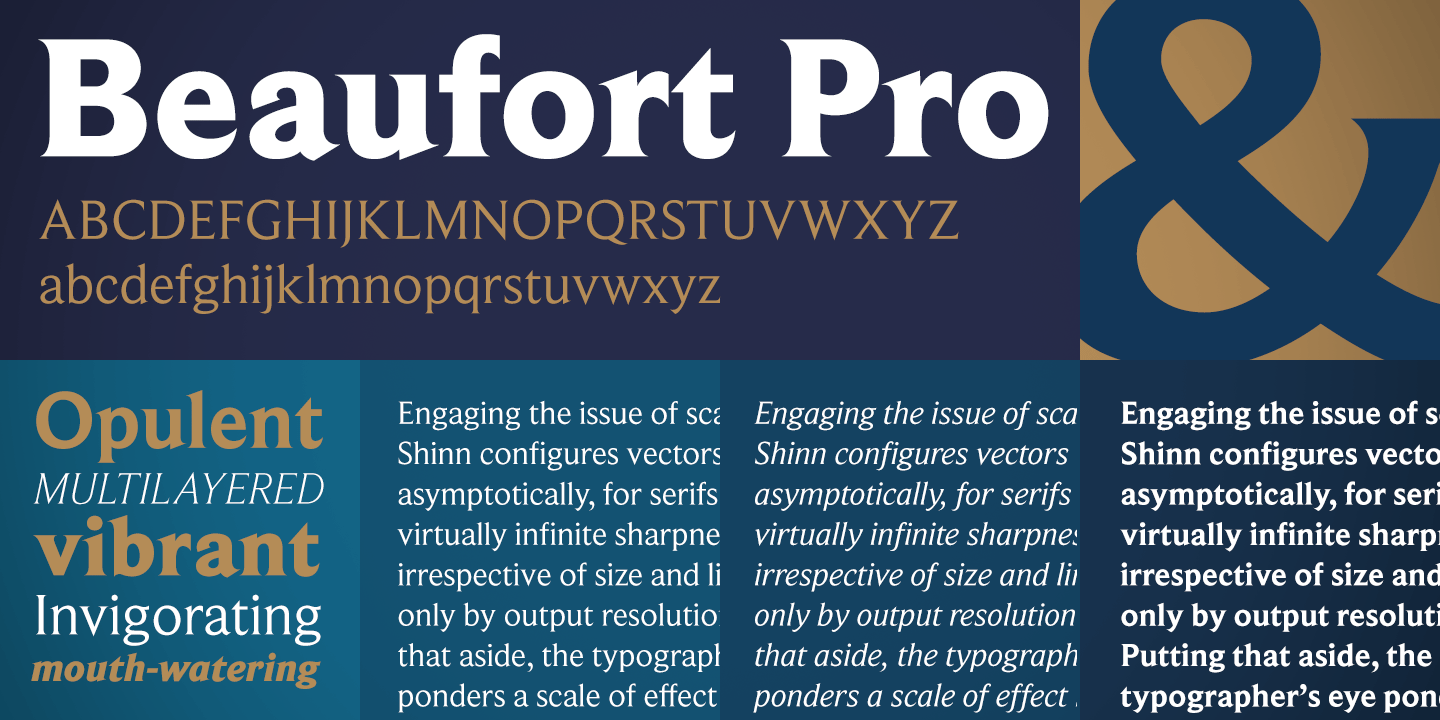
Pesaro
by Hoftype
Known for his Serif Fonts, Hoftype’s font catalogue has many winners in that category. Pesaro is less well-known than its siblings, but has just as much style and versatility. A more modern variant, Pesaro also comes equipped with a myriad of extra features, making it a very usable text typeface for any application.
Candy Script
by Sudtipos
Thick, chunky brush scripts are hard to pull off, but Sudtipos shows he has what it takes. Just enough flair without going too crazy, Candy Script has variants for just about every letter, making it especially suited to short phrases and headlines.
Beaufort Pro
by Shinntype
In sharp contrast to the other two fonts, Beaufort is full of pointed intersections between its lines. This has the effect of not only making it clean and pleasing for text, but also allows it to blow up to very large sizes and still keep its cutting edge.